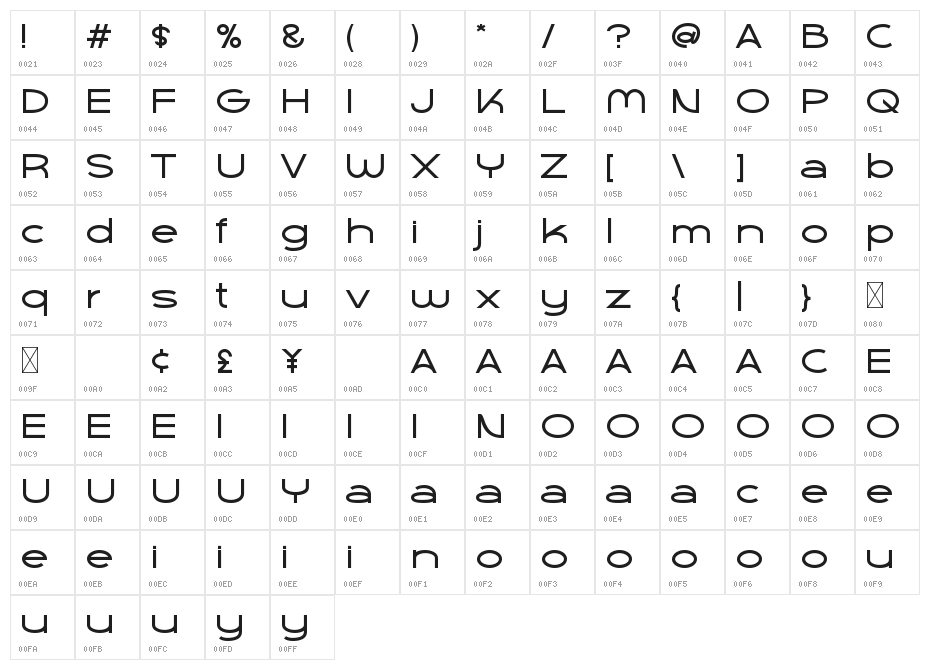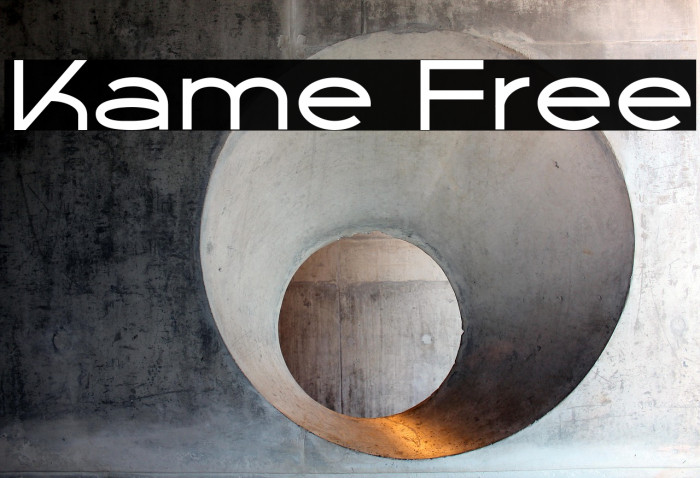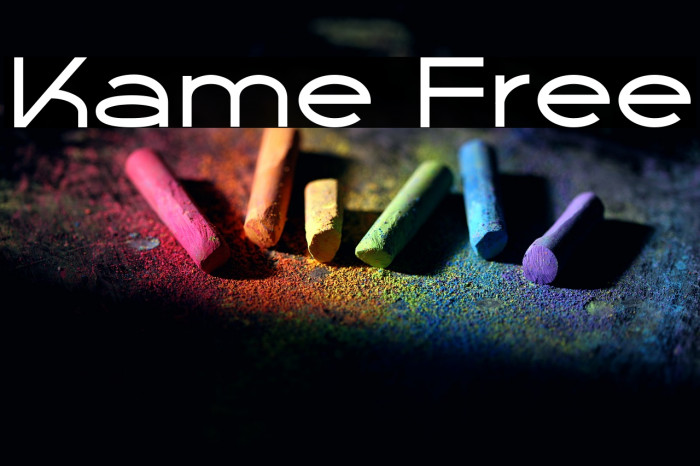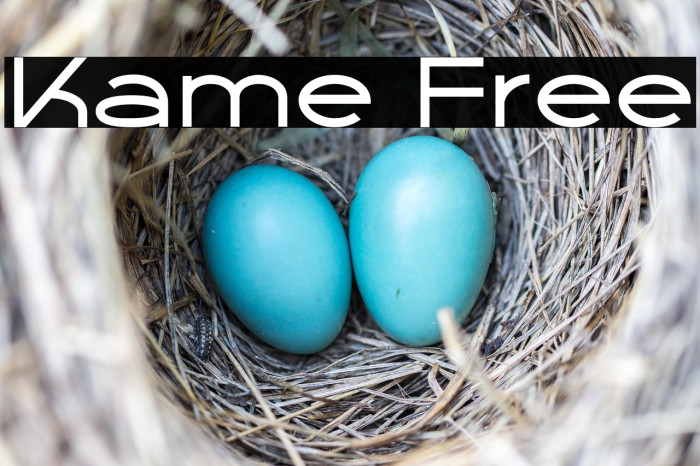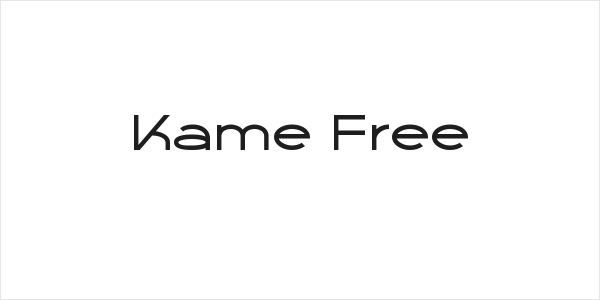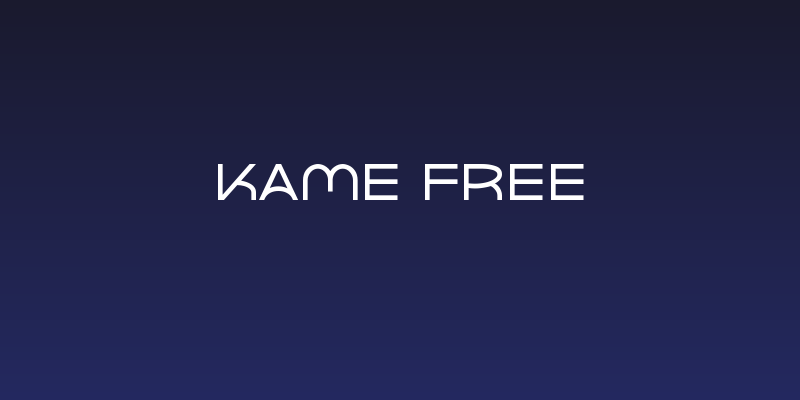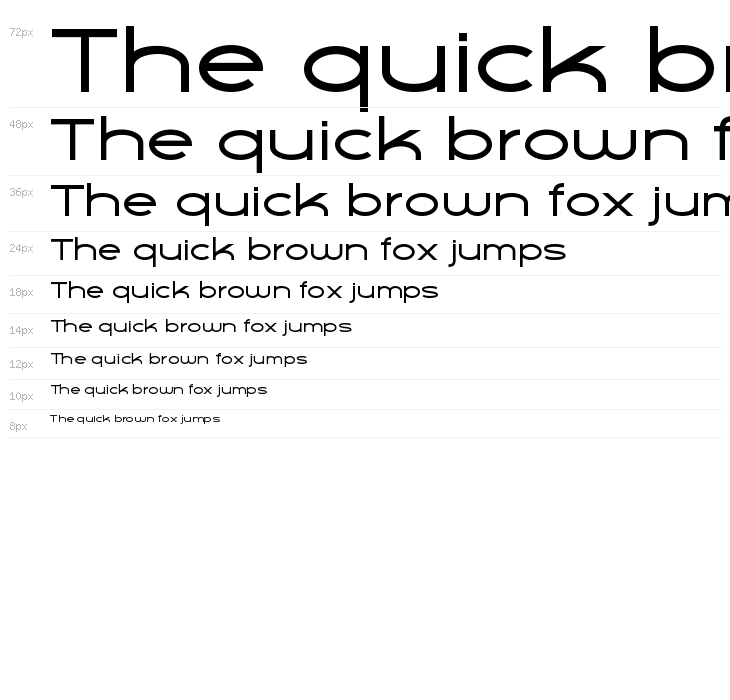
Kame Free Font
Kame Free Description
This font features a clean and modern design with a geometric structure. The characters are evenly spaced, providing a balanced and harmonious appearance. The uppercase letters are bold and assertive, while the lowercase letters maintain a consistent style with rounded edges, giving a friendly and approachable feel. The numerals and special characters are designed to match the overall aesthetic, ensuring uniformity across all text elements. The font's simplicity and clarity make it versatile for various design applications.